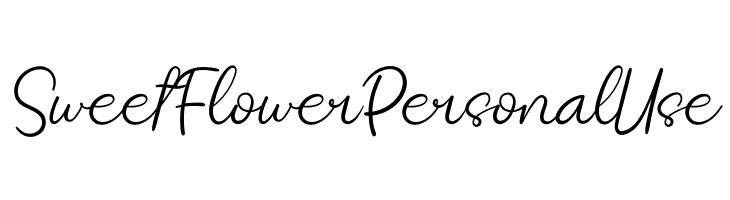
A playful and romantic script font with flowing, cursive letters and charming flourishes.
A charming and fluid script font with elegant, flowing lines and smooth curves.
A charming and fluid script font with elegant, flowing curves and smooth connections.